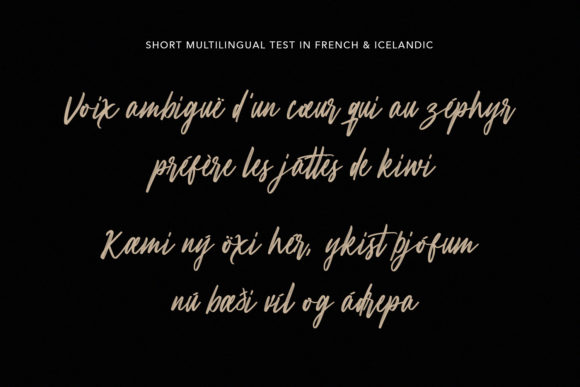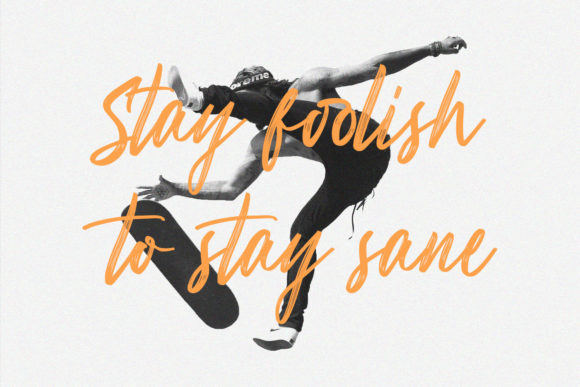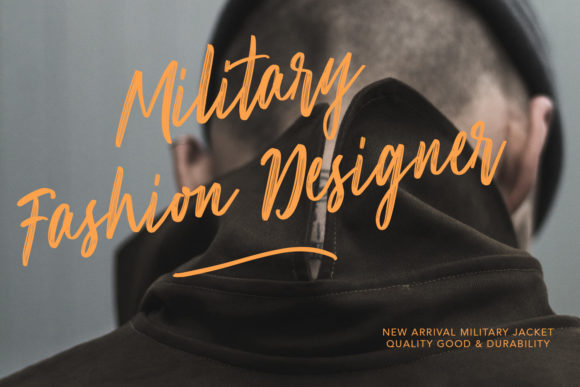
Discover the Magic of Aprictoos Font
Have you ever stared at a blank page, waiting for that spark of creativity to strike? The moment when everything falls into place and your design comes alive? That’s exactly what happens when you use the Aprictoos Font. This stylish, flowing, and cool brushed handwritten font is a game-changer for designers looking to create eye-catching logos, branding, and quotes.
With its unique and beautiful touch, every letter of the Aprictoos Font has the power to make your design stand out from the crowd. Whether you’re a seasoned pro or just starting out, this font is an essential tool in your design arsenal. Its versatility and elegance make it a valuable asset for any designer looking to elevate their work and leave a lasting impression.
Aprictoos Font Key Features
- Font Family: Aprictoos
- Unique Characteristics: Unique blend of modern and vintage elements, with a distinctive flair and elegance, making it suitable for a wide range of design applications
Aprictoos Font Review
Aprictoos Font is an interesting addition to the world of typography. I decided to give it a try and here’s my honest review.
- Unique style: Aprictoos Font has a distinct, playful feel that can add a lot of character to your designs.
- High-quality details: The font includes many intricate details that show attention to craftsmanship.
- Good for creative projects: Aprictoos Font would be perfect for art projects, illustrations, or other creative endeavors.
- Limited readability: Due to its unique style, Aprictoos Font can be challenging to read in certain contexts.
- May not be suitable for body text: The font’s design makes it better suited for headlines or titles rather than large blocks of text.
Aprictoos Font is a great addition to any designer’s toolkit, especially for those working on creative projects. While it has some limitations, its unique style and high-quality details make it a worthwhile choice. Just be mindful of its readability and use it for the right projects.
The Aprictoos font is ideal for:
- Creating eye-catching headings and titles.
- Adding a touch of elegance to your designs.
- Designing invitations, cards, and other paper-based materials.